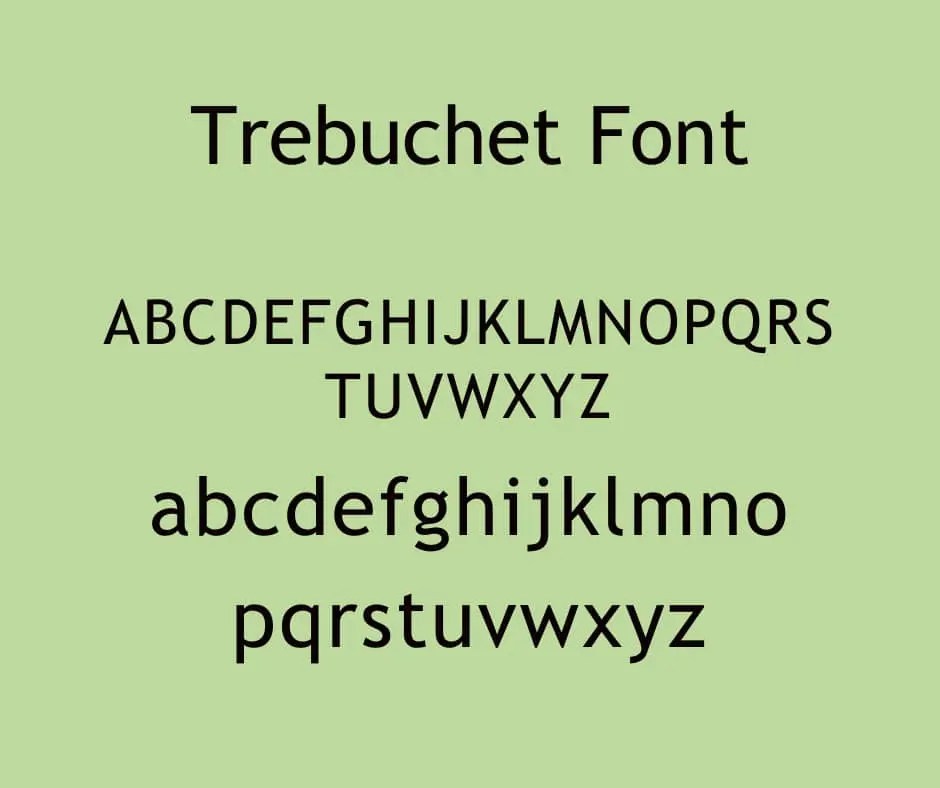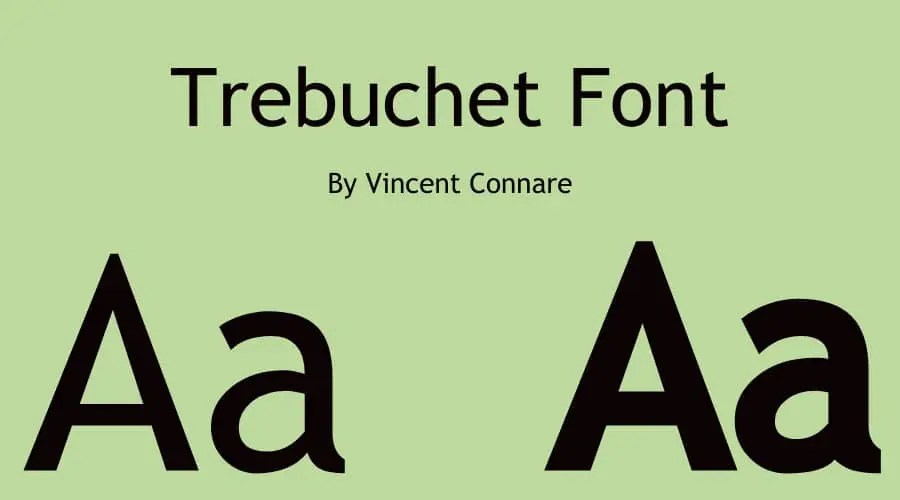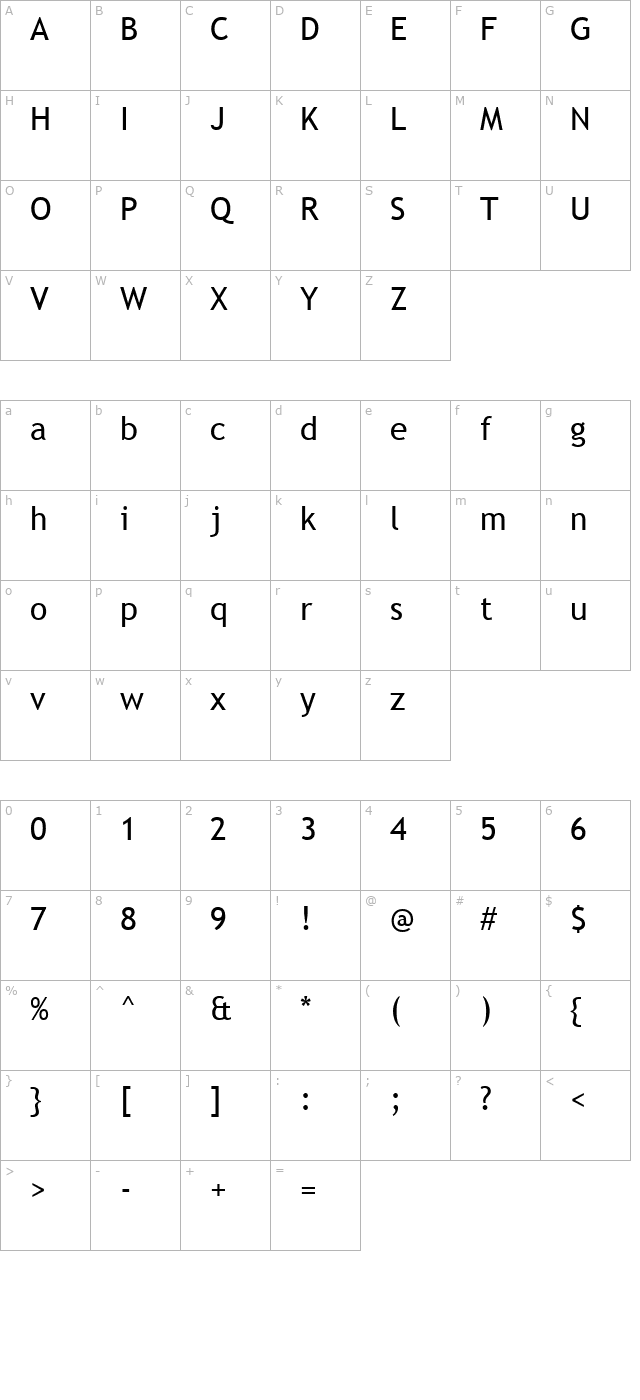
Trebuchet Ms Font Generator . That is why the font’s name can be translated as trebuchet, a. Just add a.ttf file of trebuchet ms to the site and add it to the code or something. Computers will download the font and display it. Select, preview, and generate css and html for your font family. Enter your text, select a font, choose a font size, and pick your favorite colors. About trebuchet ms font family trebuchet™ family, designed by vincent connare in 1996, is a humanist sans serif designed for easy screen readability. Moreover, you can embed it to your. safe css font stacks and web fonts. Use our free trebuchet ms font generator tool below to create your own custom design logo or image.
Computers will download the font and display it. About trebuchet ms font family trebuchet™ family, designed by vincent connare in 1996, is a humanist sans serif designed for easy screen readability. Moreover, you can embed it to your. Enter your text, select a font, choose a font size, and pick your favorite colors. Just add a.ttf file of trebuchet ms to the site and add it to the code or something. That is why the font’s name can be translated as trebuchet, a. Select, preview, and generate css and html for your font family. safe css font stacks and web fonts. Use our free trebuchet ms font generator tool below to create your own custom design logo or image.
Font Alphabet Styles Trebuchet MS Trebuchet Ms Font Generator About trebuchet ms font family trebuchet™ family, designed by vincent connare in 1996, is a humanist sans serif designed for easy screen readability. Select, preview, and generate css and html for your font family. Enter your text, select a font, choose a font size, and pick your favorite colors. That is why the font’s name can be translated as trebuchet,. Trebuchet Ms Font Generator.
Trebuchet Font Free Download Trebuchet Ms Font Generator Use our free trebuchet ms font generator tool below to create your own custom design logo or image. Computers will download the font and display it. safe css font stacks and web fonts. Just add a.ttf file of trebuchet ms to the site and add it to the code or something. That is why the font’s name can be. Trebuchet Ms Font Generator.
Download free Trebuchet MS Bold Italic font trebucbi.ttf Trebuchet Ms Font Generator That is why the font’s name can be translated as trebuchet, a. Moreover, you can embed it to your. Enter your text, select a font, choose a font size, and pick your favorite colors. About trebuchet ms font family trebuchet™ family, designed by vincent connare in 1996, is a humanist sans serif designed for easy screen readability. Use our free. Trebuchet Ms Font Generator.
Download free Trebuchet MS Italic font TrebuchetMSItalic.ttf Trebuchet Ms Font Generator safe css font stacks and web fonts. About trebuchet ms font family trebuchet™ family, designed by vincent connare in 1996, is a humanist sans serif designed for easy screen readability. Select, preview, and generate css and html for your font family. Enter your text, select a font, choose a font size, and pick your favorite colors. Use our free. Trebuchet Ms Font Generator.
Trebuchet MS Font Download Dafont Online Trebuchet Ms Font Generator About trebuchet ms font family trebuchet™ family, designed by vincent connare in 1996, is a humanist sans serif designed for easy screen readability. Use our free trebuchet ms font generator tool below to create your own custom design logo or image. safe css font stacks and web fonts. Computers will download the font and display it. Select, preview, and. Trebuchet Ms Font Generator.